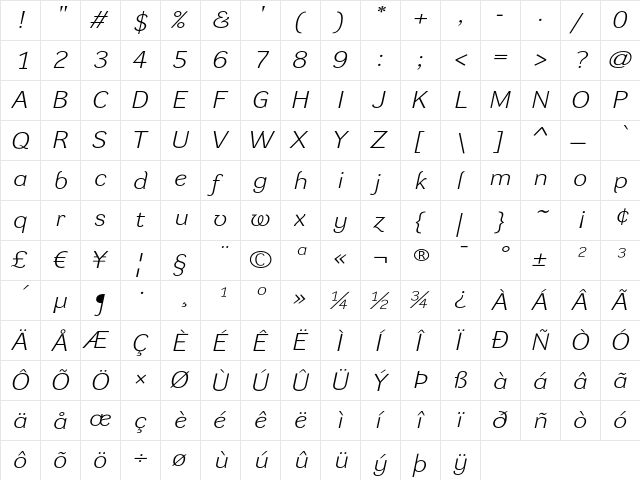
DynaGrotesk LXE Italic Font Preview
DynaGrotesk LXE Italic
DynaGrotesk LXE Italic Font Details
| Foundry | Frantisek Storm, stormtype.com |
Design Context for DynaGrotesk LXE Typeface
DynaGrotesk LXE has the quiet confidence of well-executed sans-serif typography: versatile, unobtrusive, and dependable at any size. Its italic angle brings a sense of urgency and motion to the letterforms.
Font Pairing: Works well alongside a characterful serif or display font that can carry the expressive load while DynaGrotesk LXE handles the functional copy.
Pro Tip: Use DynaGrotesk LXE for UI labels, navigation, and short-form body copy where clean legibility is the priority.